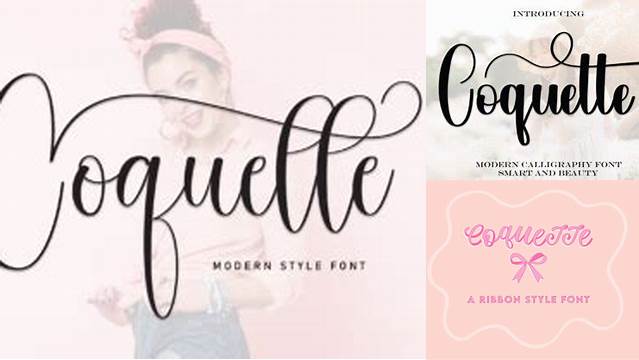
Coquette Fonts: Add A Touch Of Whimsy
Hey guys! Ever scroll through Pinterest or Instagram and see those super cute, dreamy aesthetics that just make you go 'aww'? Chances are, a big part of that charm comes down to the fonts they're using. And when we're talking about that ultra-feminine, romantic, and slightly playful vibe, the word that often pops up is 'coquette'. So, what exactly are coquette fonts, and how can you use them to sprinkle a little bit of that magic onto your own designs, social media posts, or even just a heartfelt message? Let's dive in!
What Exactly Are Coquette Fonts?
So, what are these coquette fonts we're raving about? Think of them as the visual equivalent of a tiny, adorable bow, a sprinkle of glitter, or a sweet, handwritten note. Coquette aesthetics are all about embracing femininity, romance, and a playful sense of charm. They often evoke feelings of vintage sweetness, a touch of innocence, and a dreamy, almost ethereal quality. When you translate this into typography, you get fonts that are typically delicate, flowing, and maybe even a little bit ornate. They aren't usually sharp, aggressive, or overly minimalist. Instead, they lean towards curves, loops, and a certain softness that makes them incredibly inviting and aesthetically pleasing. These fonts are perfect for branding that wants to feel approachable and whimsical, or for personal projects where you want to convey a sense of tenderness and affection. They can range from elegant script fonts that mimic calligraphy to more playful serif fonts with delicate details. The key is that they embody a certain softness and romantic appeal, making them a go-to choice for anyone looking to capture that signature coquette charm. We're talking about fonts that feel like they belong in a delicate lace invitation or on the cover of a vintage romance novel. They have a personality, a story to tell, and that story is usually one of sweetness and charm. So, next time you see a font that makes you feel instantly happy and a little bit dreamy, you're probably looking at something that fits the coquette vibe perfectly.
The Allure of Delicate Script Fonts
When we talk about coquette fonts, the first thing that often springs to mind is the delicate script variety. These fonts are the absolute queens of the coquette aesthetic, guys! They’re like the visual equivalent of a whispered compliment or a soft sigh of contentment. Think flowing, elegant lines that mimic the graceful strokes of a calligrapher's pen. They often have a beautiful, organic rhythm, with ascenders and descenders that loop and swirl in a way that feels both sophisticated and incredibly sweet. These aren't your chunky, bold scripts; we're talking about thin, airy, and graceful letterforms that feel light and romantic. They can be slightly vintage-inspired, with a touch of old-world charm, or they can be modern and fresh, yet still retain that essential softness. The beauty of these delicate scripts lies in their versatility. They can be used for elegant wedding invitations, creating a sense of timeless romance. They're also fantastic for branding for businesses that want to exude a feminine, luxurious, and approachable feel – think boutique bakeries, artisanal soap makers, or bridal shops. On social media, they can elevate simple quotes or personal messages, turning them into miniature works of art. When choosing a delicate script, look for readability. While ornate can be beautiful, you still want your message to be clear. Fonts with a slight slant and a good balance of thick and thin strokes often strike the perfect chord. They have a way of making any text feel more personal and heartfelt. It’s the kind of font that makes you want to slow down, appreciate the artistry, and really soak in the message. So, if you're aiming for that quintessential coquette feel, a beautiful delicate script font is definitely your best friend. It's the secret sauce that adds that extra sprinkle of enchantment to your visual narrative, making everything feel a little more magical and a lot more lovely. It truly embodies the essence of soft femininity and gentle allure, which are core tenets of the coquette style. They just have this innate ability to make everything look and feel more special, more considered, and more beautifully crafted, guys. It’s like they bring a touch of effortless elegance to any design they grace.
Exploring Vintage-Inspired Serif Fonts
While scripts often steal the show in the coquette world, let's not forget the charm of vintage-inspired serif fonts. These aren't your standard, no-nonsense serifs, oh no! These are the ones that have a little extra personality, a little bit of flair that makes them feel perfectly at home in a coquette aesthetic. Think about those classic fonts from old books or elegant signage from a bygone era. They often feature delicate serifs – those little feet at the end of the strokes – that are more ornamental than functional. They might have a slightly more condensed or elongated feel, giving them a distinct silhouette. The key here is the feeling they evoke: nostalgia, tradition, and a refined sense of beauty. These fonts can add a touch of sophistication and timelessness to your designs without being overly stuffy. They provide a lovely contrast to softer elements, grounding them with a classic elegance. For instance, imagine using a beautiful serif font for your main headings on a blog post about romantic fashion, paired with a more whimsical script for quotes. It creates a beautiful visual hierarchy and layers of interest. They are fantastic for brands that want to convey heritage, quality, and a subtle, classic femininity. Think of a high-end stationery brand or a luxury tea company. The subtle details in these vintage serifs, like tiny ball terminals or slightly quirky bracketed serifs, add a unique character that makes your text stand out. They are incredibly versatile and can be used in a variety of contexts, from website headers and logo design to print materials. They bring a sense of history and established grace, which can be very appealing. These fonts are a testament to the fact that classic design elements can be reinterpreted to fit modern aesthetics, offering a sense of enduring style. They have this inherent ability to make any content feel more substantial and thoughtfully presented. Plus, they just look so chic, guys, adding that undeniable touch of vintage glamour. They are the unsung heroes of many aesthetically pleasing designs, providing a solid foundation with a beautiful historical undertone.
The Playfulness of Whimsical and Decorative Fonts
Beyond the elegant scripts and classic serifs, we've also got the whimsical and decorative coquette fonts that are just pure fun! These are the fonts that don't take themselves too seriously, guys. They're like the playful wink in the coquette’s eye. They often feature quirky ligatures, unexpected swashes, or playful embellishments that add a unique personality. Think fonts that might have little hearts incorporated into the letters, delicate floral accents, or an overall hand-drawn feel that’s charmingly imperfect. These fonts are perfect for projects where you want to inject a strong dose of personality and a lighthearted, joyful vibe. They shine on invitations for birthday parties, baby showers, or even just a fun announcement. For social media, they can make your captions pop and add a memorable touch to your graphics. When using these types of fonts, the key is to balance them. Because they can be quite eye-catching, it’s often best to pair them with simpler, more legible fonts for body text. This ensures your message remains clear while still benefiting from the decorative flair. They are fantastic for creating a sense of childlike wonder or a slightly quirky, artistic sensibility. Brands that aim for a more unique, handcrafted, or eccentric feel often gravitate towards these. They bring an element of surprise and delight, making your designs feel instantly more engaging and memorable. They're not afraid to be a little extra, and that's exactly why we love them in the coquette world! They add that spark, that unique twist that makes a design truly unforgettable. They are the embodiment of playful self-expression and a joyful approach to design. These fonts are ideal for projects that aim to be both charming and distinctly individual, offering a visual language that is both accessible and full of character, guys. They really capture that spirit of lighthearted fun and creative expression, making every piece feel special.
Understanding Font Pairing for Coquette Designs
Alright, so you've found some gorgeous coquette fonts, but how do you make them work together seamlessly? This is where font pairing comes in, and it's super important for creating a balanced and aesthetically pleasing design, guys. The golden rule for coquette aesthetics is often to pair a more decorative or script font with a simpler, more readable font. Think of it like this: you want a showstopper font for your main title or a key quote, and then a clean, elegant font for the rest of your text. This creates visual interest without overwhelming the reader. For example, you could use a beautiful, flowing script font for your name on a wedding invitation and then a classic, clean serif or a simple sans-serif font for the details like the date, time, and location. This contrast helps each font shine in its own role. Another great pairing is a whimsical decorative font for a headline, balanced by a straightforward, legible sans-serif for the body copy. The contrast in style, weight, and mood is what makes the pairing work. When choosing your secondary font, consider its personality. Does it complement the main font's vibe? If your main font is super delicate and romantic, you probably don't want to pair it with a harsh, industrial sans-serif. Instead, opt for something that shares a similar level of elegance or neutrality. Sans-serif fonts like Lato, Montserrat, or Open Sans are often great choices because they are clean, readable, and don't compete with more decorative fonts. Similarly, classic serif fonts like Garamond or Times New Roman can add a touch of timeless sophistication. The goal is to create harmony, not a clash. You want your fonts to work together, telling a cohesive story. Experimentation is key here! Try different combinations and see what feels right for your project. Remember, legibility is paramount, especially for longer blocks of text. The coquette aesthetic is about charm and beauty, but it also needs to communicate effectively. So, master those pairings, and your designs will be oozing with that signature sweet and sophisticated vibe, guys!
####### Why Legibility Matters in Coquette Typography
Even in the dreamy world of coquette typography, guys, we can't forget about legibility. It's super important! While it's tempting to go all out with the most ornate and decorative fonts you can find – and trust me, they are so pretty! – the primary goal of any text is to be read and understood. If your audience has to squint or struggle to decipher your message, then even the most beautiful font is going to fall flat. For coquette designs, this means finding that sweet spot between decorative charm and clear communication. Think about where you're using the font. If it's for a large heading on a poster or a social media graphic, a more stylized font might be perfectly acceptable, as people are usually just glancing at it. However, if it's for the main body text of a blog post, an email newsletter, or even the details on an invitation, legibility becomes crucial. You want to choose fonts that, while embodying the coquette spirit – perhaps with soft curves, elegant flourishes, or a touch of vintage flair – still maintain clear letterforms and good spacing. This often means opting for scripts that aren't too condensed or overly complex, and serif fonts that have distinct shapes for each letter. Sans-serif fonts, known for their clean lines, can also work wonderfully in coquette designs, especially when they have slightly rounded terminals or a friendly feel. It's all about balance. The coquette aesthetic is about delight and charm, not confusion. So, when selecting your fonts, always do a test run. Write out a few sentences and see how they look. Are they easy on the eyes? Does the message come across clearly and effortlessly? If the answer is yes, then you've found a winner! Prioritizing legibility ensures that your beautiful coquette designs are not just visually appealing but also effective in conveying your message, making them truly successful. It’s about making sure that the charm doesn't come at the cost of clarity, guys. We want people to be enchanted, not frustrated!
######## The Role of Color in Enhancing Coquette Fonts
So, we’ve talked about the shapes and styles of coquette fonts, but how do we make them pop even more? Enter color, guys! The right color palette can absolutely transform how a font looks and feels, amplifying that dreamy, feminine coquette vibe. Think soft pastels – baby pinks, lavenders, mint greens, and creamy whites. These colors instantly evoke a sense of sweetness and innocence, perfectly complementing delicate script or whimsical fonts. Imagine a beautiful rose gold font on a soft blush background, or a creamy ivory text on a light grey. It’s pure elegance! But it’s not just about pastels. Deeper, richer tones can also work beautifully, especially when aiming for a more sophisticated or vintage coquette feel. Think muted burgundies, deep teals, or even a rich chocolate brown. These can add depth and a touch of luxuriousness, especially when paired with metallic accents like gold or silver. The contrast between a dark, elegant font color and a lighter background can be incredibly striking. Metallics themselves – gold, silver, rose gold, and copper – are practically synonymous with the coquette aesthetic. Using them for your fonts adds an instant touch of glamour and sparkle. They catch the light beautifully and add a luxurious feel to any design. Even a subtle shimmer can make a big difference. When choosing colors, consider the mood you want to create. For a playful, lighthearted feel, brighter pastels or even a pop of coral might work. For a more romantic and elegant vibe, think softer, blended hues or deeper jewel tones. Texture also plays a role; a matte finish might feel more subtle, while a glossy or metallic finish screams luxury. Ultimately, the goal is to use color to enhance the inherent charm of the coquette font, making it more inviting, more visually appealing, and perfectly aligned with that romantic, feminine aesthetic we all love. It's about creating a cohesive visual language where the font and its color work hand-in-hand to tell a sweet story, guys.
######### Finding Free and Premium Coquette Font Options
Awesome! So you're ready to sprinkle some coquette magic on your projects, but where do you actually find these fonts, right? Luckily, guys, there are tons of options, both free and premium coquette fonts available. For free options, websites like Google Fonts, DaFont, and Font Squirrel are goldmines. You might need to do a little digging, searching for terms like 'script,' 'handwritten,' 'elegant,' 'feminine,' or 'decorative,' but you can definitely unearth some gems. Look for fonts that have a good range of weights and characters to ensure versatility. Just be sure to double-check the licensing agreements for free fonts, especially if you plan to use them for commercial projects. Some are free for personal use only. When you're ready to invest a bit more for something truly unique or with a wider range of features, premium font foundries like MyFonts, Creative Market, or Fontspring are the places to go. Here, you'll find professionally designed fonts with extensive character sets, multiple weights, ligatures, and commercial licenses. Many designers specialize in creating beautiful script and decorative fonts that are perfect for the coquette aesthetic. Searching on these platforms using keywords like 'coquette,' 'girly script,' 'romantic font,' or 'whimsical font' will yield fantastic results. Keep an eye out for sales and bundles, too – they can be a great way to acquire high-quality fonts at a lower cost. Don't be afraid to explore different designers; each has their own unique take on feminine typography. The key is to build a collection that suits your specific needs and style. Whether you're on a budget or looking to splurge, there's a perfect coquette font out there waiting for you to discover it, guys. Happy font hunting!
########## Coquette Fonts for Social Media Branding
If you're building a brand on social media, guys, you know how important visuals are. And guess what? Coquette fonts can be your secret weapon for nailing that perfect, dreamy aesthetic! Think about your Instagram grid, your TikTok videos, your Pinterest boards – they all need a consistent visual language, and fonts play a huge role. Using coquette fonts for your profile name, your highlight covers, your quote graphics, or even text overlays on your videos can instantly communicate your brand's personality. If your brand is all about romance, self-care, luxury, or anything feminine and charming, these fonts are a match made in heaven. For example, imagine a boutique selling handmade jewelry. Using a delicate script font for their logo and then a slightly more legible, but still elegant, serif for product descriptions can create a cohesive and appealing look. On Instagram Stories, a cute, playful font for a poll or a Q&A sticker can add a touch of personality. For TikTok, using a trendy coquette font for your video captions or titles can make them stand out and grab attention. Consistency is key here. Choose a font or a font pairing that you love and use it across all your social media platforms. This builds brand recognition and reinforces your aesthetic. Look for fonts that are not only beautiful but also relatively easy to read on smaller screens. While fancy scripts are gorgeous, sometimes a cleaner, more modern interpretation of a coquette font works best for digital platforms. The goal is to be visually enchanting while ensuring your message is clear and accessible to your audience. By strategically incorporating coquette fonts into your social media branding, you can create a captivating online presence that truly reflects your brand's unique charm and feminine appeal, guys.
########### Practical Applications: Where to Use Coquette Fonts
So, we've established that coquette fonts are super charming, but where can you actually use them, guys? The possibilities are pretty much endless! Let's break down some practical applications:
- Invitations & Stationery: This is a classic! Think wedding invitations, bridal showers, baby showers, birthday parties, or even just elegant thank-you notes. Coquette fonts add that perfect touch of romance and festivity.
- Branding & Logos: Small businesses, especially those in the beauty, fashion, lifestyle, or artisanal product space, can use coquette fonts to create a soft, feminine, and approachable brand identity. A beautifully crafted logo using a script or elegant serif font can make a huge impression.
- Social Media Graphics: As mentioned, these fonts are perfect for Instagram posts, Pinterest pins, Facebook covers, and YouTube thumbnails. They help create a visually cohesive and aesthetically pleasing feed.
- Website Design: Use them for headings, subheadings, or even special call-to-action buttons on websites aiming for a romantic, whimsical, or feminine feel.
- Personal Projects: Love journaling? Scrapbooking? Creating digital art? Coquette fonts can add that extra layer of charm and personality to your personal creations.
- Digital Products: If you sell planners, templates, or digital artwork, incorporating coquette fonts can enhance the appeal and target audience.
- Email Newsletters: A touch of elegance in your newsletter subject lines or headers can make your emails more inviting.
The key is to use them where you want to evoke feelings of romance, sweetness, playfulness, sophistication, or vintage charm. They are versatile enough to be used for both formal and informal occasions, depending on the specific font chosen. Just remember the importance of pairing and legibility, and you'll be golden!
############ Tips for Choosing the Perfect Coquette Font
Choosing the right coquette font can feel a bit overwhelming with so many beautiful options out there, guys. But don't worry, I've got some tips to help you find that perfect match!
- Consider the Vibe: What specific feeling do you want to evoke? Is it ultra-romantic and dreamy? Playful and whimsical? Sophisticated and vintage? Different coquette fonts lean into different aspects of the aesthetic. Identify your primary mood.
- Think About Readability: Seriously, guys, this is crucial. While ornate fonts are tempting, ensure your chosen font is legible for its intended use. Test it out! If it's for body text, prioritize clarity. If it's for a small accent, more flourish is okay.
- Check the License: Are you using it for personal projects or commercial use? Always double-check the font license. Free fonts often have restrictions for commercial use.
- Look at the Character Set: Does the font include all the characters you need? Uppercase, lowercase, numbers, punctuation, and any special symbols or ligatures? A comprehensive character set makes the font more versatile.
- Pairing Potential: If you plan to use more than one font, consider how your coquette font will pair with others. Look for fonts with good contrast and complementary styles.
- Test Drive: Before committing, try typing out your actual text in the font. See how it looks in different sizes and contexts. Does it feel right? Does it capture the essence you're going for?
- Trust Your Gut: Ultimately, the best font is one that you love and that resonates with your project. If it makes you happy and fits the aesthetic, you're probably on the right track!
By following these tips, you'll be well on your way to finding a coquette font that adds that perfect touch of charm and elegance to your creations, guys!
############## The Evolution of Feminine Typography
It's fascinating to think about how typography has evolved, especially when we look at feminine typography and how it relates to coquette fonts. Historically, handwriting and calligraphy were the primary forms of written expression, and they were often inherently elegant and flowing, especially in formal settings. Think of the beautiful illuminated manuscripts or the ornate script used in Victorian correspondence. These styles laid the groundwork for what we now recognize as romantic and feminine fonts. As printing technology advanced, typefaces began to emerge. Early serif fonts, inspired by calligraphy, carried a sense of tradition and grace. Over time, designers started experimenting, creating fonts that emphasized certain characteristics. In the late 19th and early 20th centuries, decorative styles flourished, and fonts with more flourish and ornamentation became popular, reflecting the prevailing artistic movements. The digital age has, of course, revolutionized everything. We now have access to an unprecedented variety of typefaces, allowing for incredibly specific aesthetic choices. The 'coquette' style, as a modern internet aesthetic, draws heavily from these historical roots but reinterprets them with a contemporary sensibility. It takes the inherent softness and romance of older scripts and decorative styles and makes them accessible and adaptable for today's digital and design landscape. It’s about capturing a feeling – one of sweetness, charm, and playfulness – that resonates with a particular audience. So, while the term 'coquette font' might be relatively new, the underlying principles of elegant, flowing, and decorative typography have a rich history. It's a beautiful example of how design trends recycle and reinterpret elements from the past to create something fresh and relevant for the present, guys. This evolution shows a continuous appreciation for beauty and expressive form in written communication.
################## Balancing Whimsy and Professionalism with Coquette Fonts
Using coquette fonts can be incredibly fun, but the million-dollar question is, guys, how do you balance that inherent whimsy with a sense of professionalism, especially in a business context? It's totally doable! The trick lies in strategic application and smart pairing. For professional branding, you don't necessarily want your entire communication to look like a fairytale book (unless that's exactly your niche!). Instead, think of coquette fonts as accents or special touches. For instance, a law firm probably shouldn't use a bubbly script for its official letterhead. However, perhaps for a special event invitation they're hosting, or a specific marketing campaign aimed at a softer demographic, a tasteful coquette font could be used sparingly. The key is context. A coquette font might be perfect for a wedding planner's logo and website, conveying romance and attention to detail. But for a financial advisor's website? Probably not ideal for the main headings. Consider the industry, the target audience, and the overall message. A more refined, elegant script or a vintage serif font often strikes a better balance than a super playful, cartoony decorative font. Pairing is also vital here. Use your chosen coquette font for headlines, subheadings, or decorative elements, and pair it with a clean, professional sans-serif or serif font for the bulk of the text. This ensures clarity and maintains a level of seriousness where needed, while still allowing the charm to shine through. Think of it as adding a beautiful ribbon to a well-wrapped gift – it enhances the presentation without compromising the contents. It’s about using these fonts purposefully to add personality and charm, rather than letting them dictate the entire tone in a way that undermines credibility. So yes, you can absolutely be whimsical and professional, guys, with a little thoughtful design!
################### The Psychological Impact of Coquette Font Choices
Have you ever thought about how fonts can actually affect how people feel? It's true, guys! The psychological impact of coquette font choices is pretty significant. These fonts, with their soft curves, elegant flourishes, and often romantic feel, tap into certain emotional responses. They tend to evoke feelings of warmth, happiness, comfort, and approachability. Think about it: a sharp, angular font might feel aggressive or serious, while a bubbly, flowing script often feels friendly and inviting. Coquette fonts, in particular, lean into sentiments of nostalgia, innocence, and tenderness. This can create a positive emotional connection with your audience. For brands, using coquette fonts can make them appear more relatable, approachable, and empathetic. It suggests a brand that cares about aesthetics, detail, and perhaps a gentler approach to business. For personal use, like on a heartfelt card or a special announcement, these fonts can amplify the sincerity and sweetness of your message. They can make the recipient feel cherished and understood. On the flip side, it's important to be mindful of the context. While positive, an overabundance of overly whimsical or cutesy fonts might, for some audiences, read as unprofessional or even juvenile. The effectiveness of a coquette font often depends on the viewer's cultural background, personal preferences, and the specific context in which the font is presented. However, generally speaking, the inherent qualities of coquette fonts are designed to create positive, gentle, and aesthetically pleasing emotional responses, contributing to a feeling of delight and charm. They are a tool to shape perception and foster a specific kind of connection, guys. It's all about understanding how these visual cues translate into feelings and reactions.
#################### Discovering Unique Handmade Coquette Fonts
Looking for something truly special, guys? Let's talk about unique handmade coquette fonts. These aren't your mass-produced, standard typefaces. These are fonts that often feel like they've been lovingly crafted by an artist's hand, brimming with personality and charm. Handmade fonts often have that delightful imperfection – slightly irregular lines, unique quirks in the letterforms, or a distinctively organic feel. They can range from elegant brush scripts that look like authentic calligraphy to charming, slightly uneven hand-drawn sans-serifs. The beauty of these fonts lies in their individuality. They make your designs stand out from the crowd because they don't look like everyone else's. For brands aiming for an artisanal, bespoke, or deeply personal feel, handmade coquette fonts are an absolute dream. They communicate authenticity and a dedication to craft. Imagine a small bakery using a font that looks like it was hand-lettered on their daily specials board – it adds so much warmth and character! You can often find these unique fonts on platforms like Etsy, Creative Market, or directly from independent font designers' websites. Searching for terms like 'hand-lettered font,' 'artisan font,' 'unique script,' or 'organic font' can lead you to some incredible finds. When choosing a handmade font, pay attention to its consistency (or intentional inconsistency!). Does it feel cohesive, even with its unique quirks? Ensure it still has enough clarity for your intended use. These fonts are perfect for adding that extra special, one-of-a-kind touch that truly captures the heart of the coquette aesthetic – personal, charming, and beautifully unique, guys. They bring a tangible sense of artistry to your digital world.
##################### The Influence of French Culture on Coquette Aesthetics
Ah, French culture – it's practically synonymous with romance, elegance, and effortless chic, isn't it? And guess what? It has a massive influence on the coquette aesthetic, and by extension, the types of fonts we associate with it. Think Parisian cafés, vintage boutiques, delicate pastries, and that certain je ne sais quoi. French style often embodies a blend of sophistication and playfulness, a touch of vintage charm mixed with modern flair. This translates beautifully into typography. Many coquette fonts, especially the more elegant script and serif styles, borrow heavily from classic French lettering and signage. You'll see influences from Art Nouveau, which often featured flowing, organic lines, and Rococo, known for its ornate and delicate details. The emphasis on beauty, romance, and a slightly whimsical approach to life in French culture directly mirrors the core tenets of the coquette style. Even the word 'coquette' itself has French origins, meaning a woman who playfully tries to attract attention or admiration. So, it makes perfect sense that fonts reflecting this playful flirtatiousness and sophisticated charm would be highly valued. When choosing fonts for a coquette-inspired project, thinking about French elegance can be a great guiding principle. Look for fonts that feel refined yet approachable, perhaps with a slightly retro or vintage feel. They should exude a sense of timeless beauty and understated luxury. It’s about capturing that effortless grace that the French are so famous for. So, whether it's the delicate curves of a script or the refined details of a serif, the influence of French culture is undeniable in shaping the visual language of the coquette aesthetic, guys. It’s a beautiful fusion of historical European charm and modern digital sensibilities.
###################### Coquette Fonts in Wedding and Event Design
When it comes to wedding and event design, guys, setting the right tone is everything! And if you're aiming for a romantic, whimsical, or charmingly sweet vibe, coquette fonts are your absolute best friends. Imagine your wedding invitations: a beautiful, flowing script font for your names and the main header, paired with a clean, elegant serif for the details. Instantly, you've got that dreamy, romantic feel that whispers elegance and love. It's not just invitations, either! Think about save-the-dates, ceremony programs, menus, place cards, thank-you notes, and even signage at the venue. Using coquette fonts consistently across these elements ties your entire event's aesthetic together beautifully. For a bridal shower or a baby shower, these fonts are practically mandatory! They perfectly capture the celebratory, joyous, and feminine nature of these events. A playful, decorative font for a 'Wishes for the Baby' card or a delicate script for the 'Bride-to-Be' banner adds that extra touch of enchantment. Even for less traditional events, a touch of coquette typography can add a unique and memorable flair. The key is to choose fonts that align with the overall theme and formality of your event. A more ornate script might be perfect for a black-tie affair, while a slightly more casual, hand-drawn style could be ideal for a rustic barn wedding. Remember to consider legibility for important details like times and locations. Font pairing is your best friend here – use a more decorative coquette font for impact and a simpler font for clarity. By thoughtfully incorporating coquette fonts, you can ensure your event's stationery and décor exude the perfect blend of romance, charm, and personality, making it an unforgettable experience for you and your guests, guys!
####################### The Trendiness of Coquette Fonts Today
It's no secret that aesthetics and trends come and go, but right now, guys, the coquette aesthetic is having a major moment, and that means coquette fonts are super trendy! We're seeing them everywhere – from social media profiles and blog designs to branding for new businesses and even in fashion. This resurgence in popularity is likely due to a few factors. Firstly, there's a growing appreciation for hyper-femininity and romanticism in design, pushing back against overly minimalist or stark aesthetics. Coquette fonts perfectly embody this embrace of softness, charm, and traditional femininity with a modern, playful twist. Secondly, the rise of platforms like TikTok and Pinterest has made aesthetics highly visible and shareable. Users are constantly looking for ways to express their personal style visually, and coquette fonts offer a readily accessible way to do just that. They're visually appealing, easy to recognize, and add an instant 'cute' factor. Thirdly, the digital world allows for easy access to a vast library of fonts, making it simpler than ever for designers and individuals alike to experiment with and adopt these trending styles. Designers are creating new, fresh interpretations of coquette fonts, keeping them relevant and exciting. While trends eventually evolve, the appeal of fonts that convey sweetness, romance, and playfulness is likely to have lasting power. For now, though, if you're looking to tap into a currently popular and visually delightful aesthetic, incorporating coquette fonts into your designs is a surefire way to be on-trend, guys. They’re a fantastic way to add personality and that touch of magic that’s currently captivating so many!
######################## Exploring Different Styles within Coquette Fonts
While